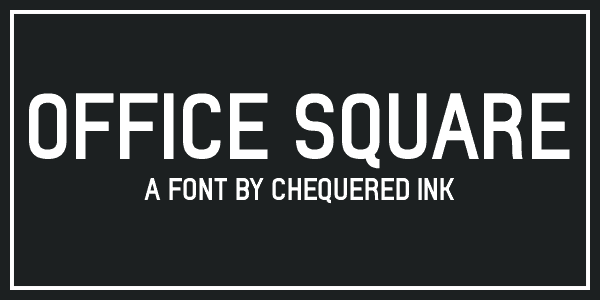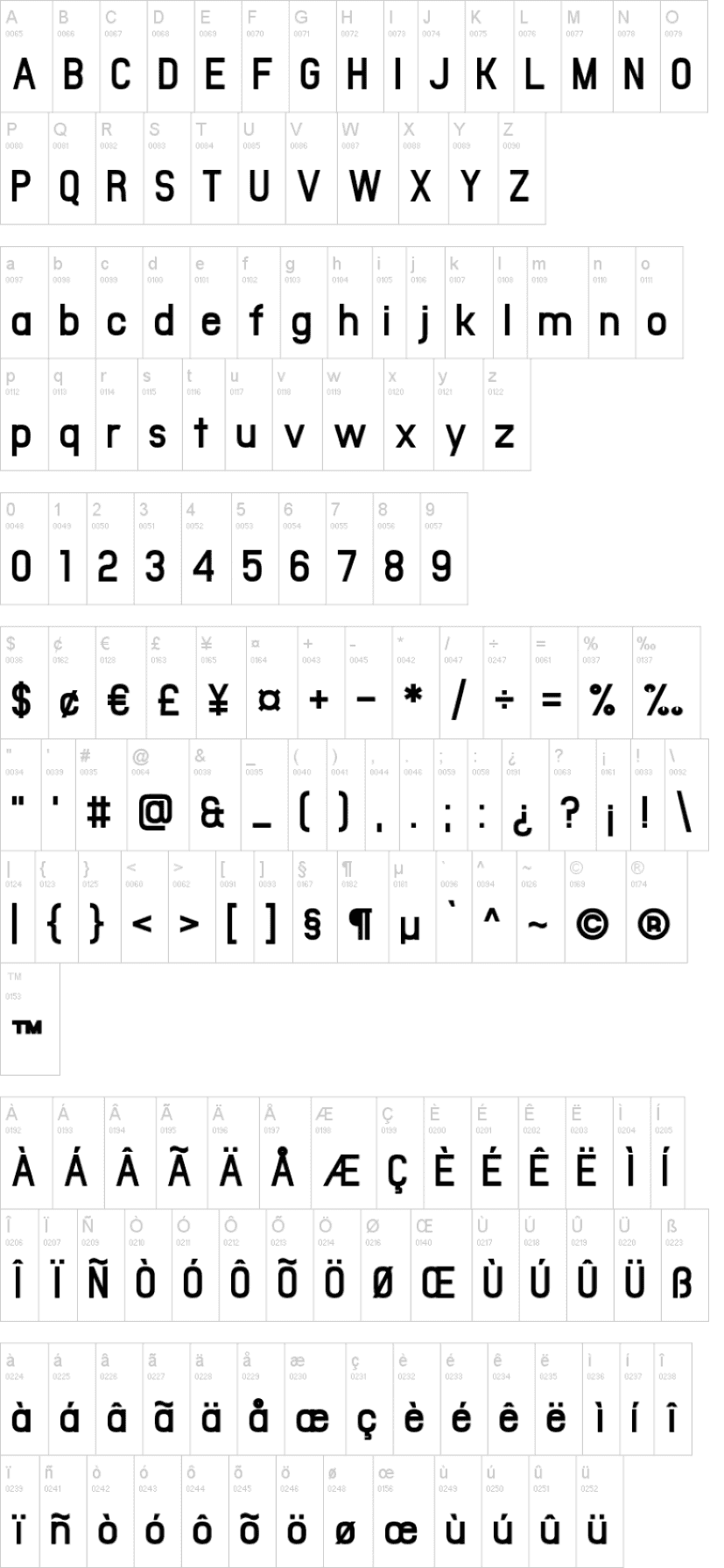
Discover Office Square Font, part of the Sans Serif collection—a versatile and unique font perfect for adding a personal touch to your projects. Download it for free and enjoy crafting designs with style, from invitations to social media posts. This font is available exclusively for personal use, giving you the freedom to create without limits. Unlock your creativity with Office Square Font today!
Office Square belongs to the Sans serif category and was created by Chequered Ink, the font is 100% free for download and personal use. It is able to type all the letters of the alphabet including the small and capital letters and some other symbols as well.